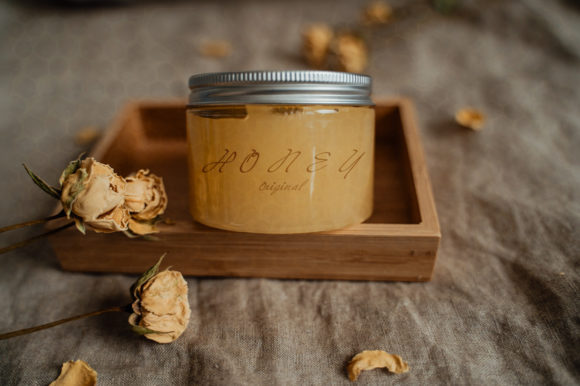
Merianti Script Font – Free Download
Introduction to Merianti Script Font
Merianti Script is a beautiful and light handwritten font with a unique feel and a stunning impact.
| 👤 Author | Adhem Studio |
It will add a luxury spark to any design project that you wish to create .
Key Features of Merianti Script Font
Why Choose Merianti Script Font?